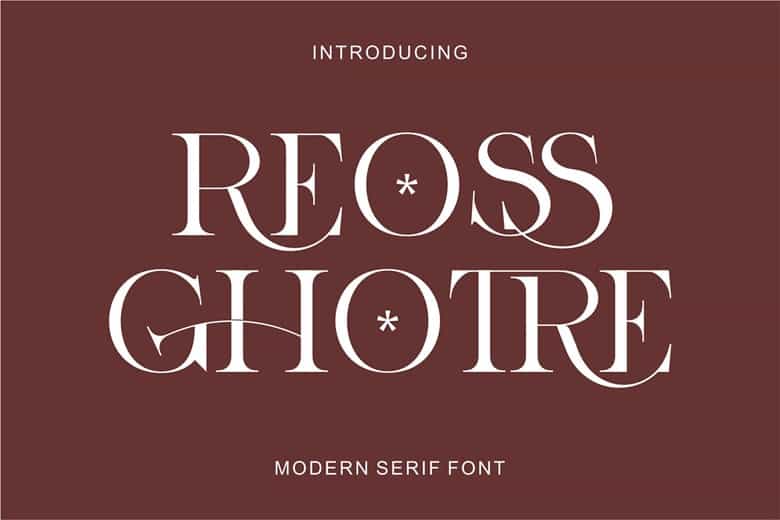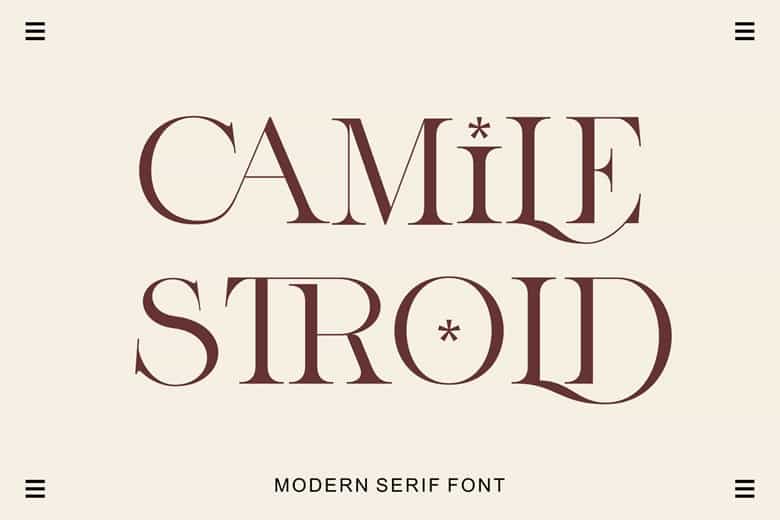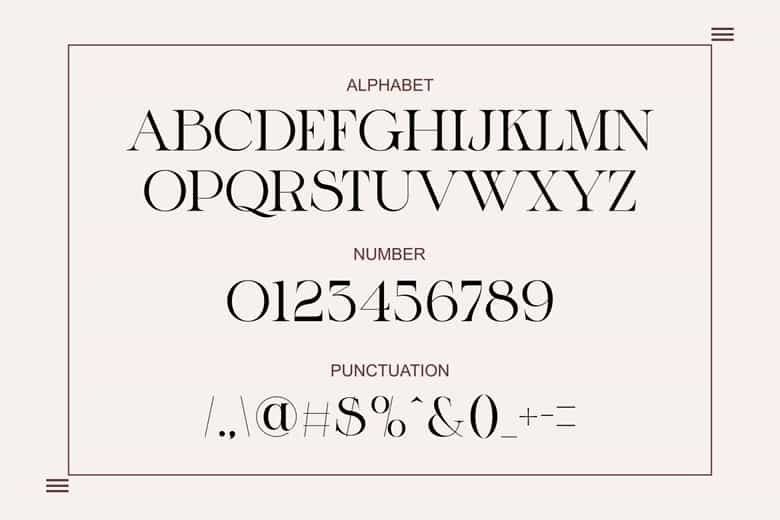
Reossghotre is a high quality plain serif fancy font of retro & modern classy style for your new pretty designs. Modern and Classy branding projects can be benefited by the stylish, creative and classically designed Caroline font. Many variants and connections will provide you with the opportunity to achieve a very original logo.